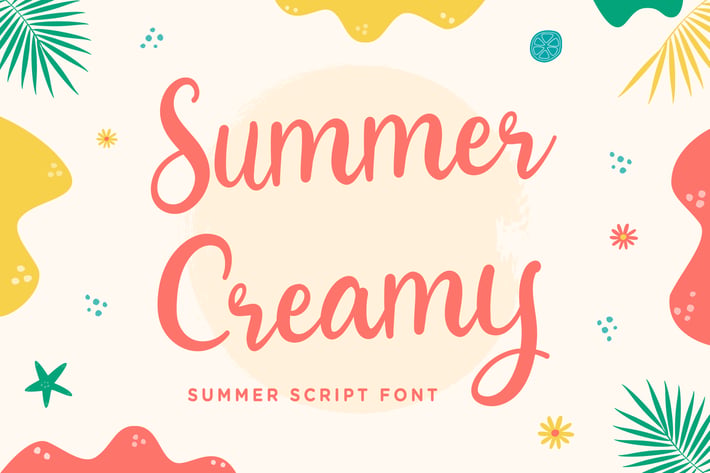
Summer Creamy – Summer Script Font
Summer Creamy is a fun and cool script with a summer feel.
Suitable for Quotes, invitations, product packages, and many more.
This script is a true must-have for any summer-themed designs!
– Lowercase
– Ligature
– Alternate
– Multilingual Support